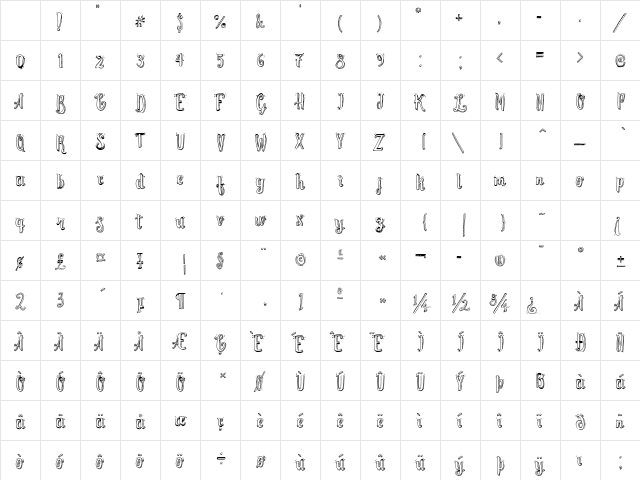
Complete Cute Script Regular glyph index. Displaying only characters natively supported by Cute Script Regular font.
Cute Script flows with the natural rhythm of handwritten lettering, making it ideal for designs that call for warmth and personal expression.
Font Pairing: Combine Cute Script with a simple geometric sans for maximum contrast - the tension between flowing curves and clean structure is a classic typographic pairing.
Pro Tip: Use Cute Script for short runs of text - names, titles, or taglines. Extended body copy in script faces tires the eye quickly.